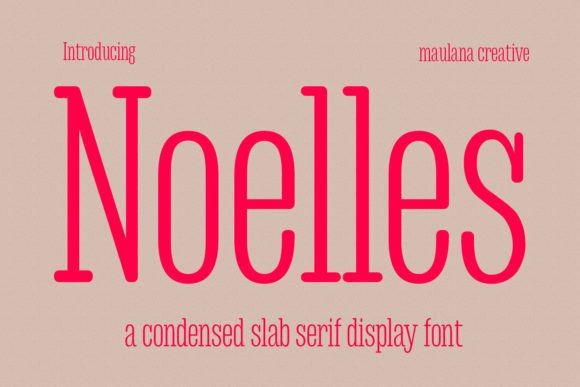
Behold the Noelles Font, a resplendent slab serif font that exudes elegance and sophistication. With its timeless charm and striking presence, this font family is the ultimate choice for those seeking to create designs that leave a lasting impression.
Journey through the world of typography with Noelles, crafted by the visionary Maulana Creative, a font that seamlessly blends the classic and the contemporary. Its sturdy serifs and refined curves dance in perfect harmony, creating a visual symphony that captivates the eyes.
Noelles unveils its versatility, effortlessly adapting to a myriad of design projects. Whether you're unleashing your creativity in logo design, captivating your audience through social media, or crafting movie and book titles that ignite imagination, Noelles serves as your steadfast companion.
In the realm of web design, Noelles establishes itself as a commanding presence, its bold strokes and graceful terminals enhancing the user experience. Transform your business cards and flyers into works of art, leaving an indelible mark on those who encounter them.
Noelles invites you to explore the boundless possibilities of typography, empowering you to weave enchanting tales and evoke emotions through your designs. Its inherent beauty and adaptability make it the perfect choice for those who dare to stand out and make an unforgettable statement.